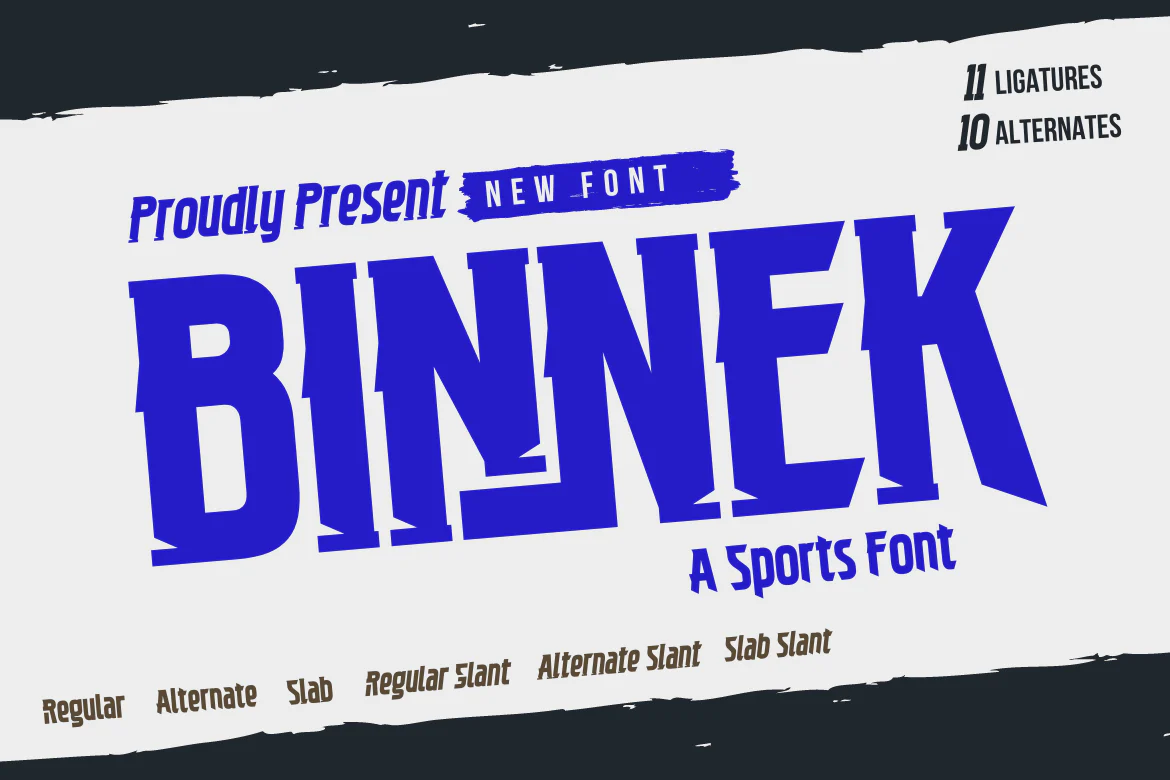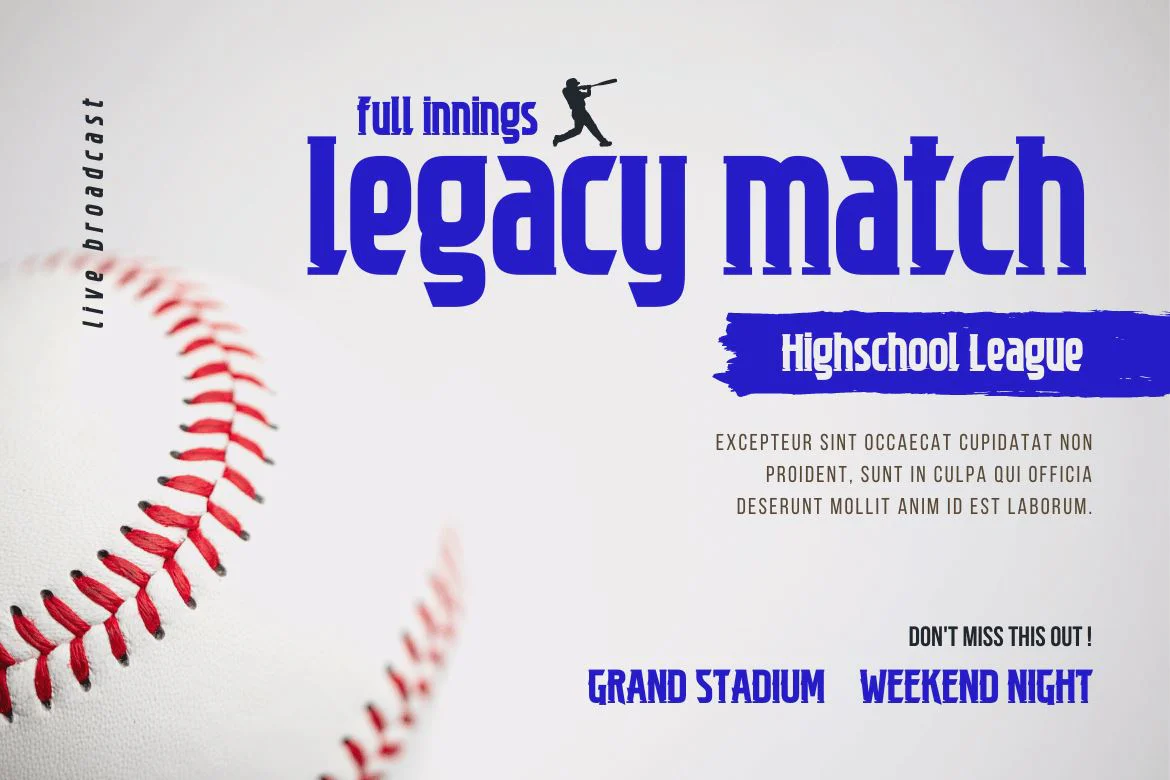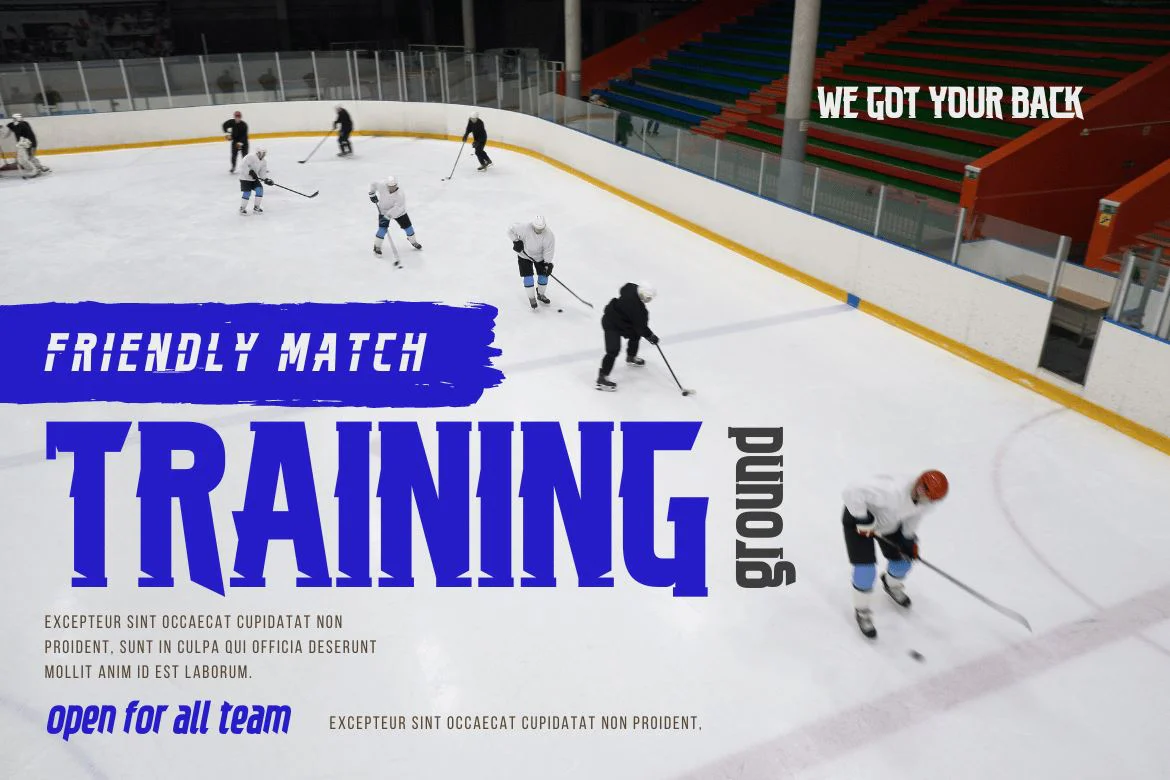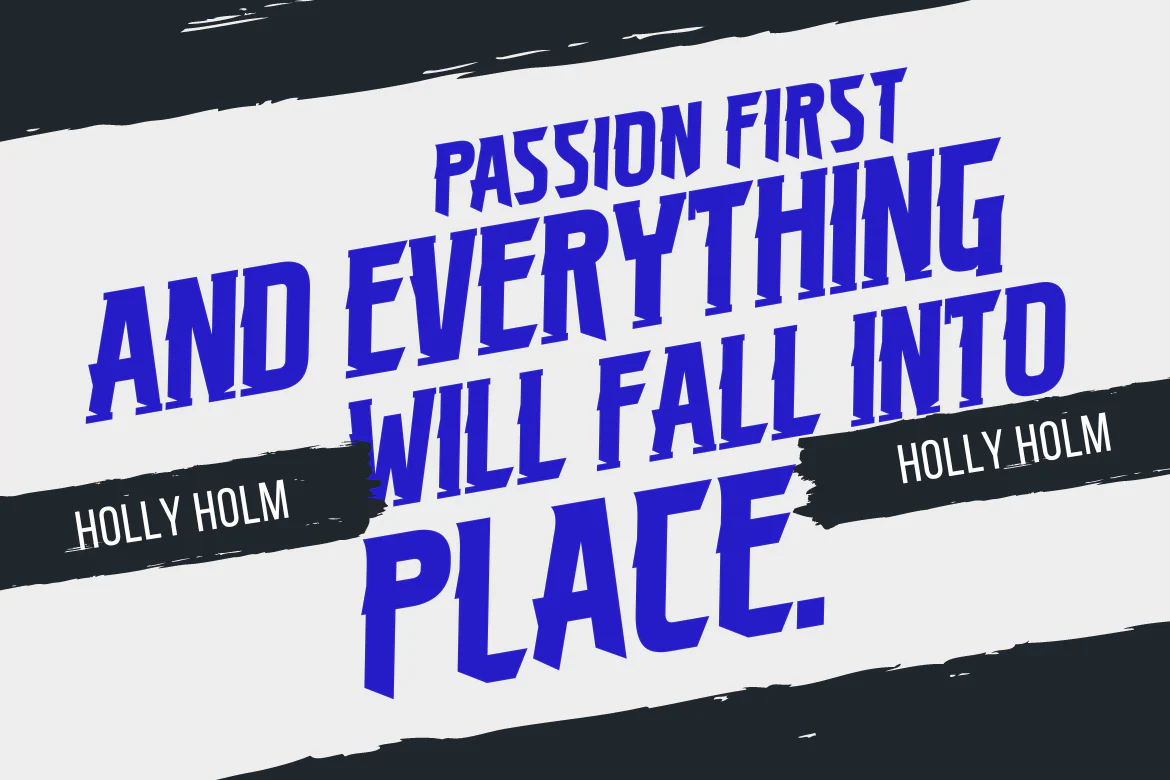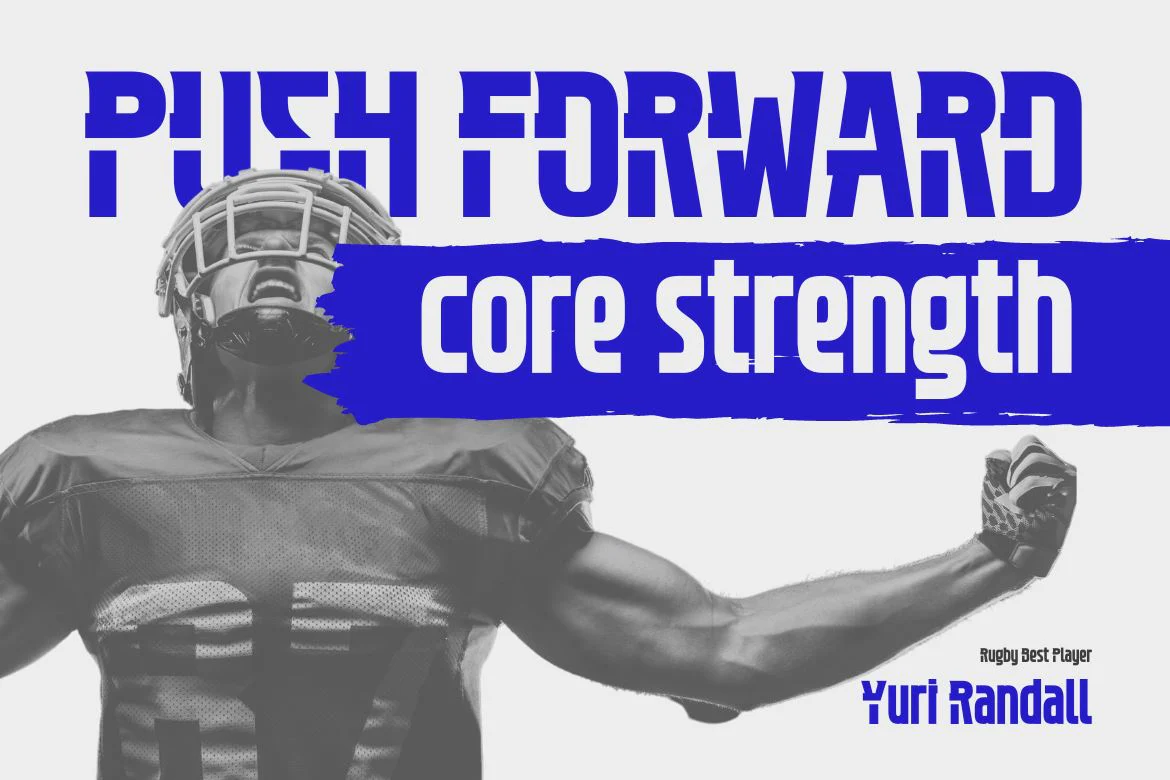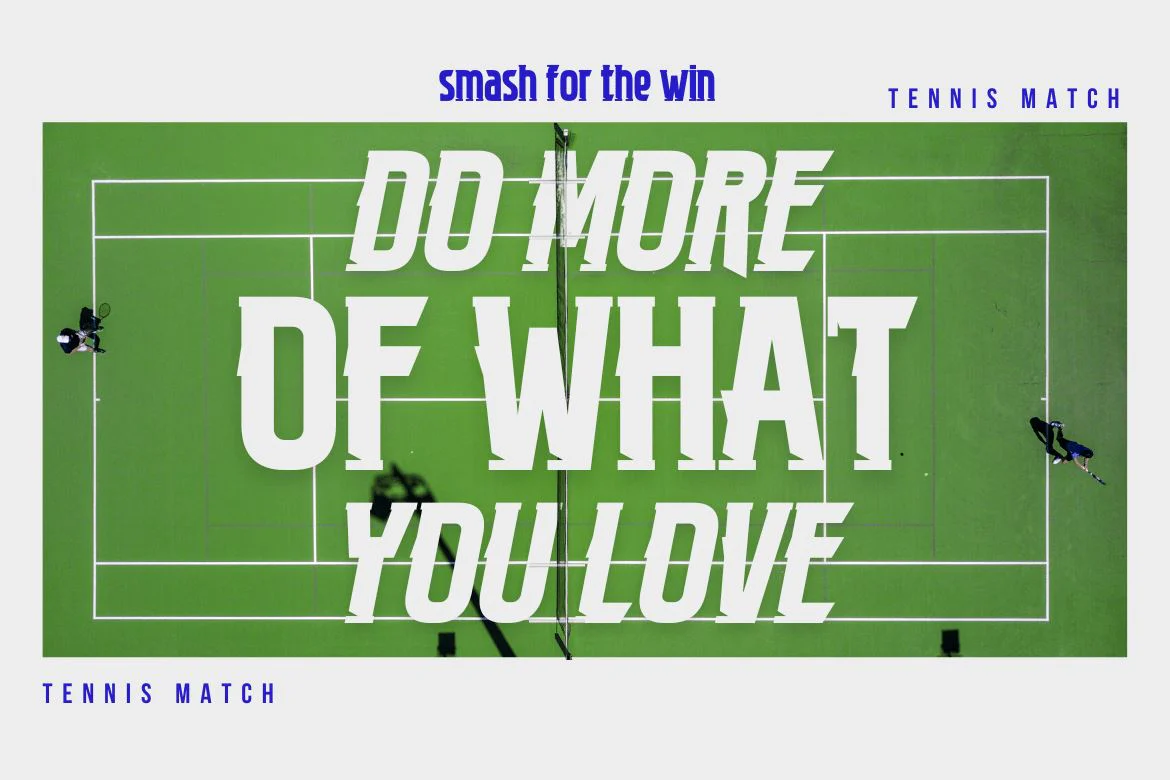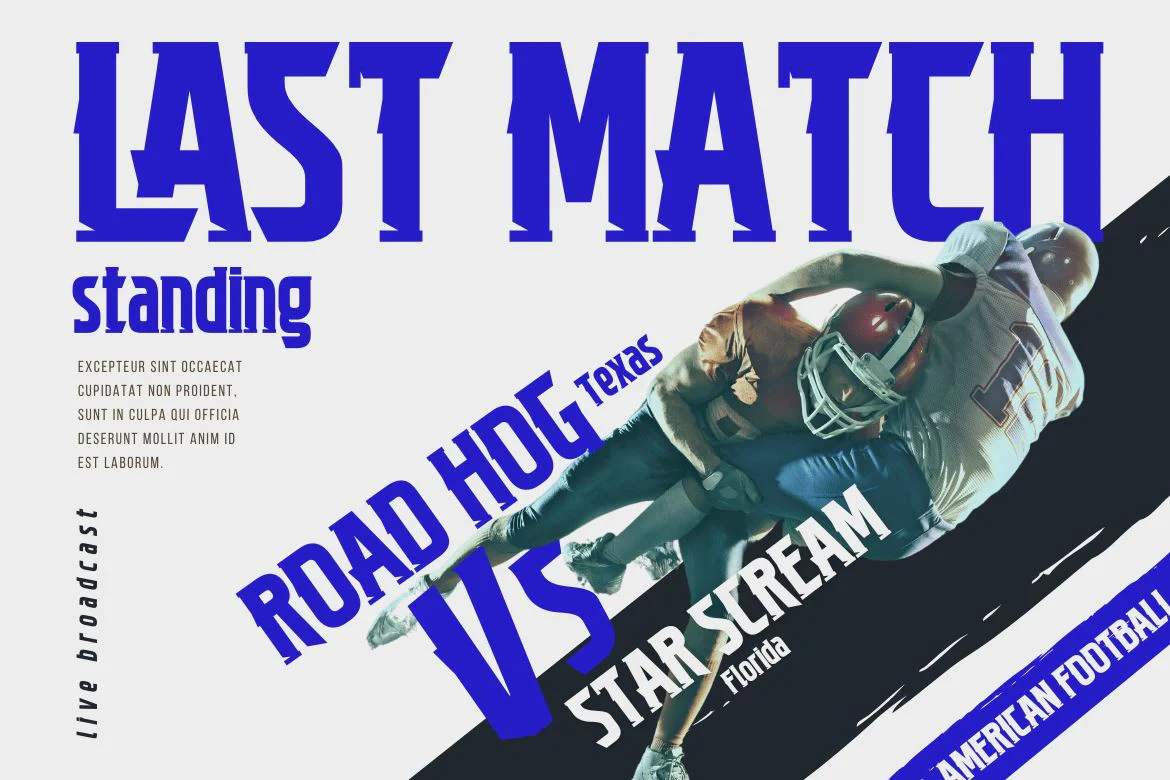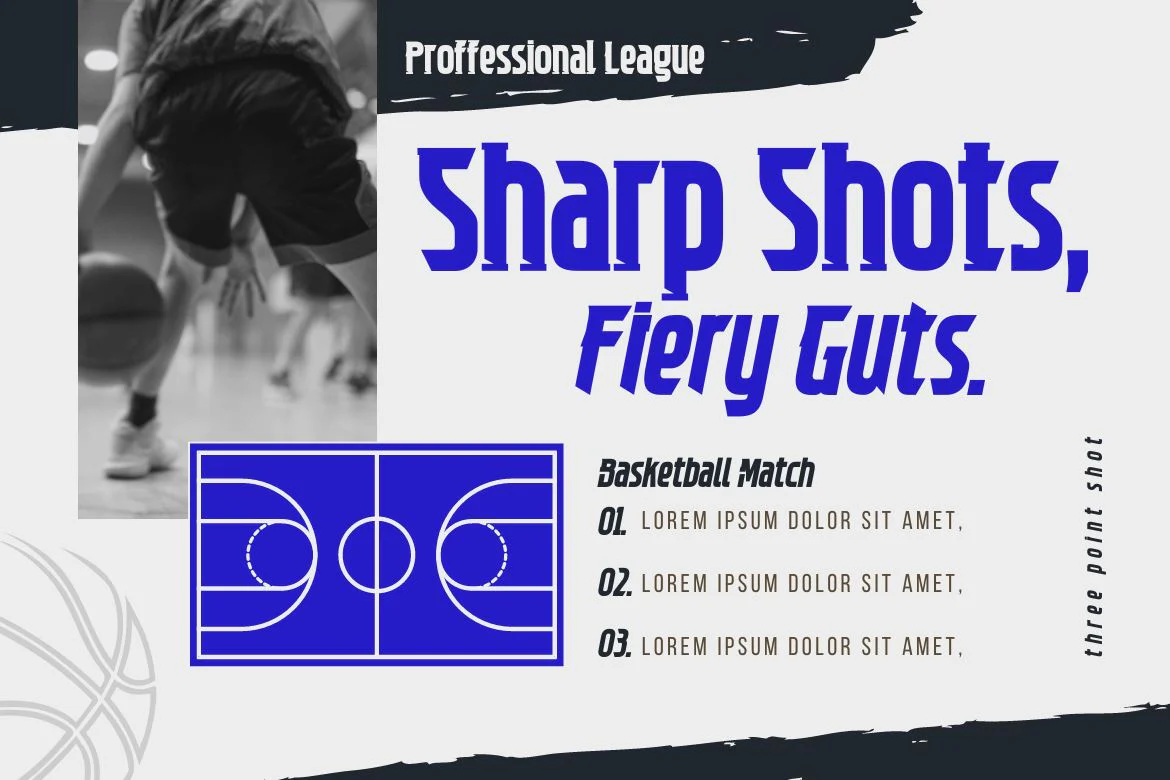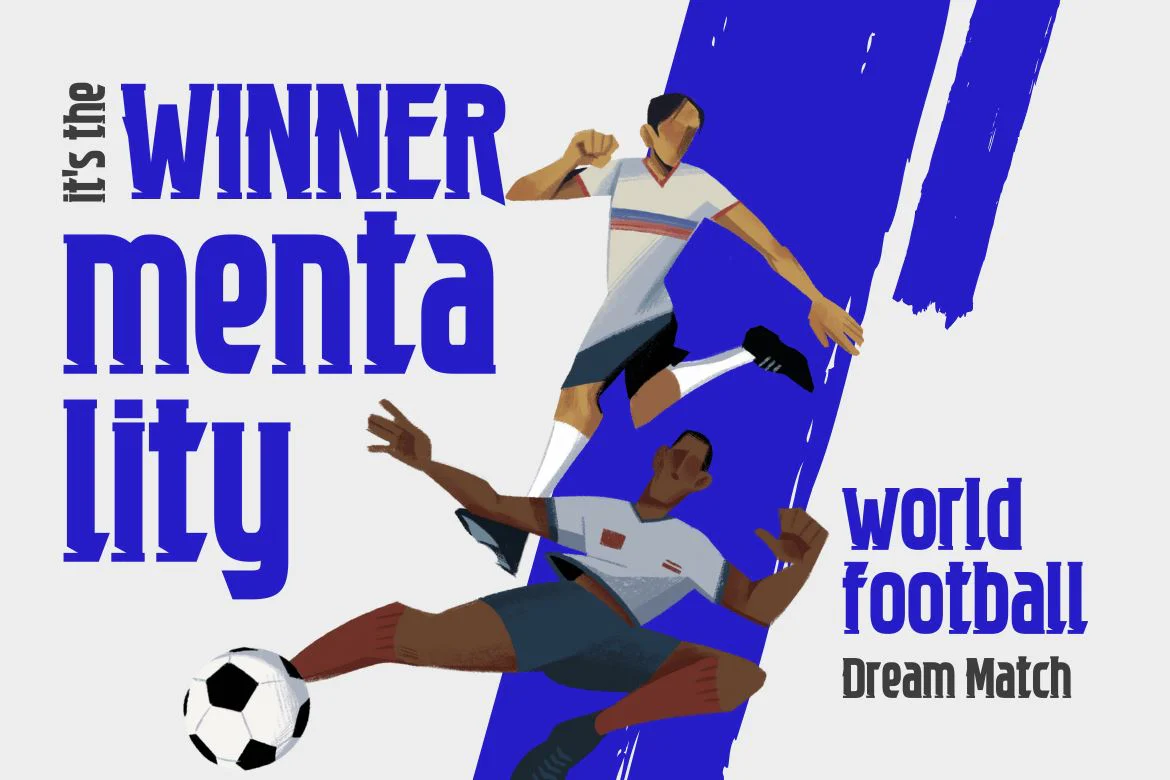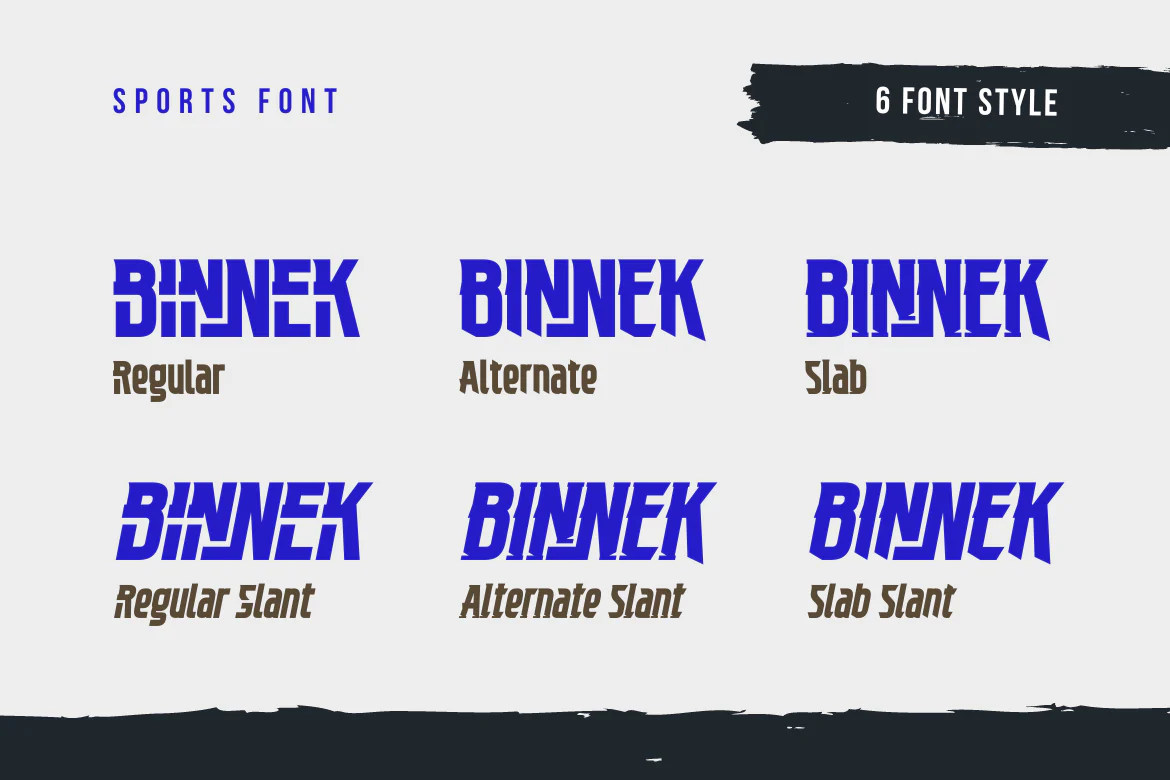
BINNEK | Athletic Font
Binnek is the perfect font for any sporting event. This font, combined with the immense popularity of outdoor sports, has generated a huge demand for typography solutions suitable for use in outdoor advertising media. Binnek features 6 different styles from sans, and slabs, to sharp edges, as well as beveled variations, the result is a versatile display typeface that can be used in high-speed situations while still taking advantage of a contemporary tone. Using this font also tells everyone that you mean business.